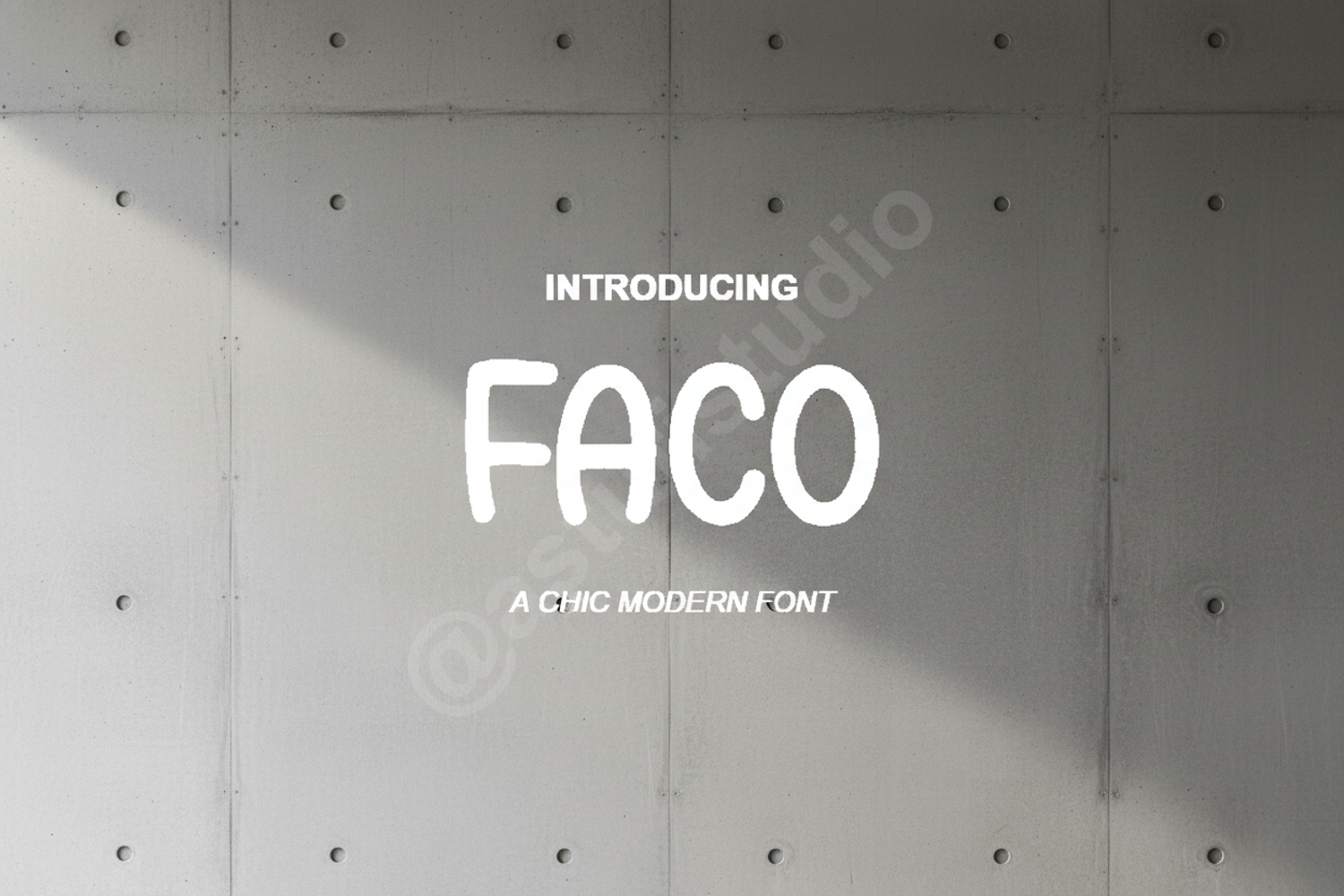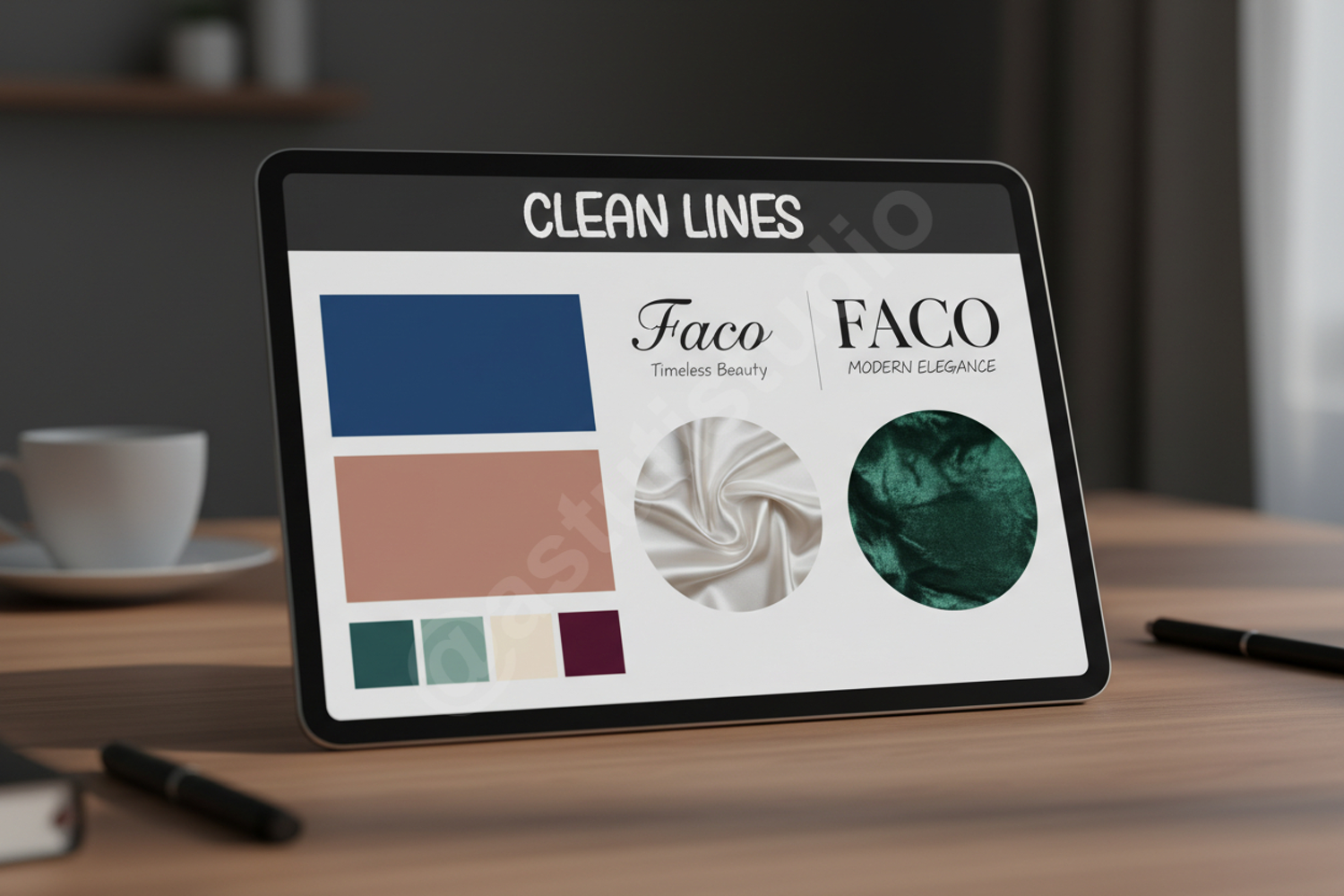
Faco | Modern Geometric Sans Serif Typeface
Faco
Faco is a premium geometric sans serif typeface meticulously crafted to provide a perfect balance between modern aesthetics and functional legibility. This versatile font is designed for creatives who require a clean, sophisticated, and high-impact look for their professional projects. With its precise lines and balanced proportions, Faco ensures your message is delivered with clarity and style across all mediums.
- Full Uppercase and Lowercase Character Set
- Comprehensive Numerals and Punctuation
- Multilingual Support for global reach